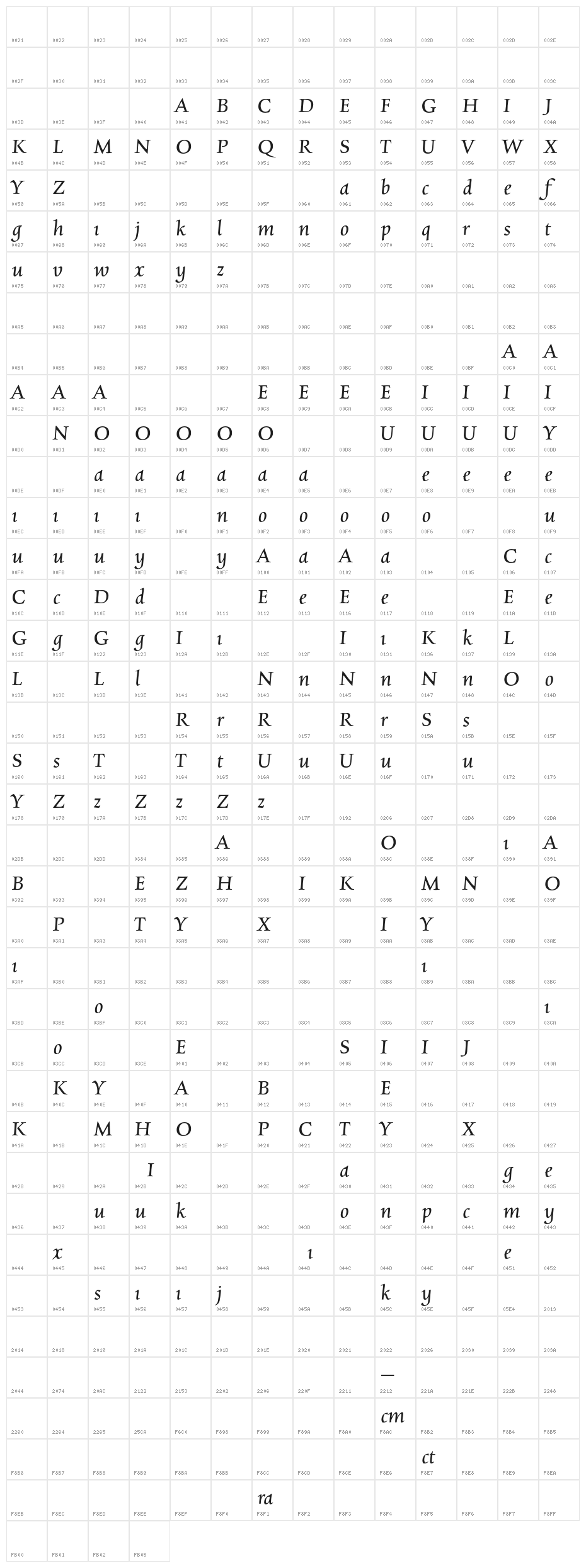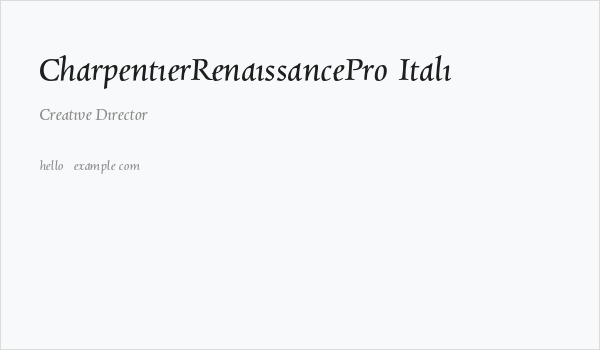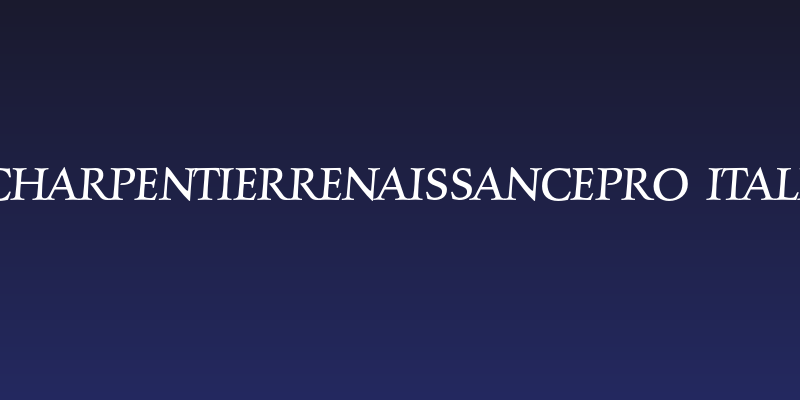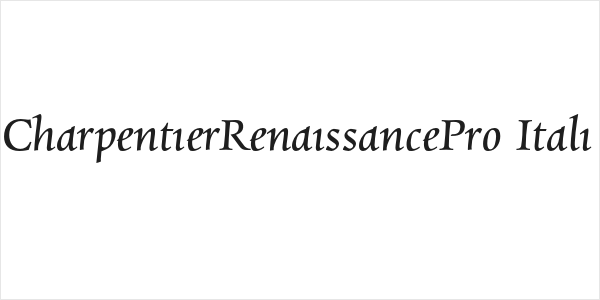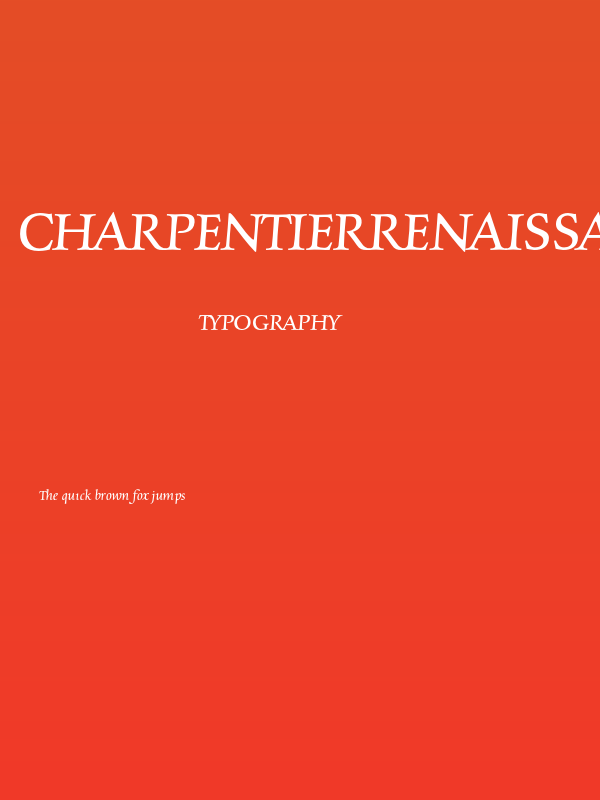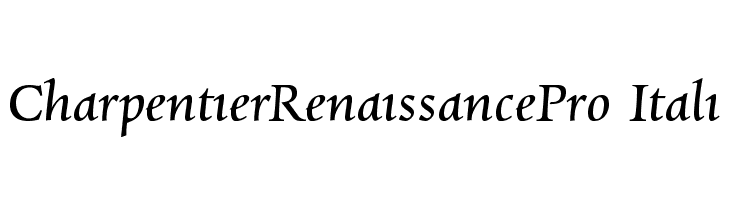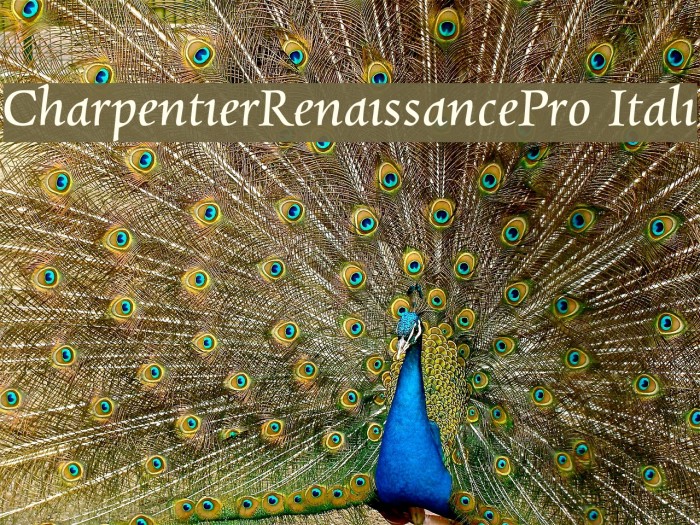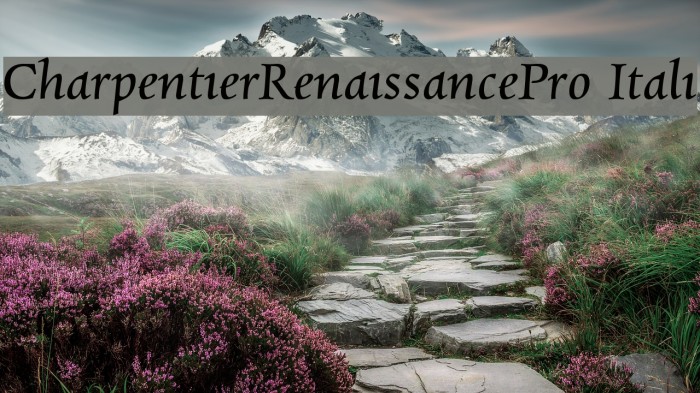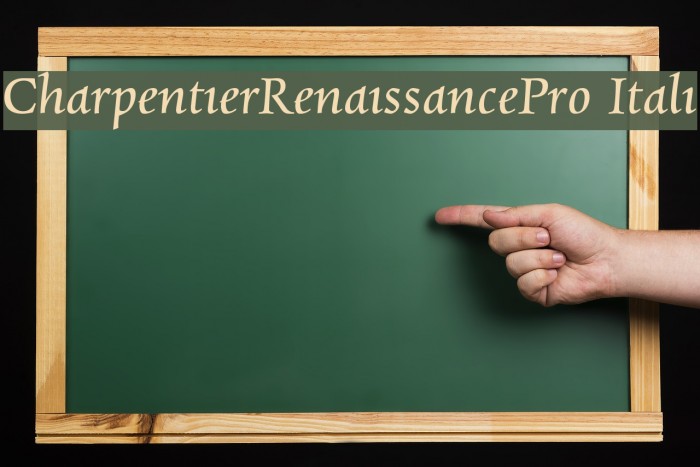
CharpentierRenaissancePro-Itali Font
CharpentierRenaissancePro-Itali Description
This font embodies a classic elegance with its refined and sophisticated design. The strokes are gracefully curved, offering a sense of fluidity and movement. The serifs are pronounced yet delicate, adding a touch of traditional charm. The overall appearance is balanced and harmonious, making it suitable for formal and artistic applications. The italic style enhances its elegance, providing a sense of dynamism and flair. This font is perfect for projects that require a touch of historical sophistication and timeless beauty.
| Overall Style | Classic |
| Use Case | Headlines, Body text, Logos |
| Proposed Projects | Ideal for wedding invitations, historical documents, elegant branding, and artistic publications. |